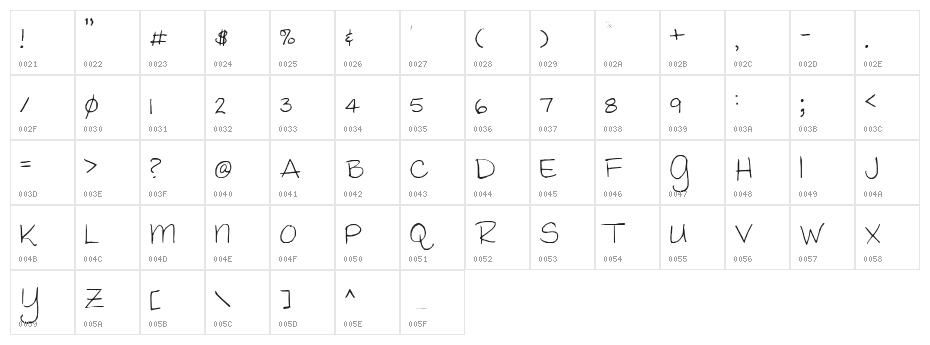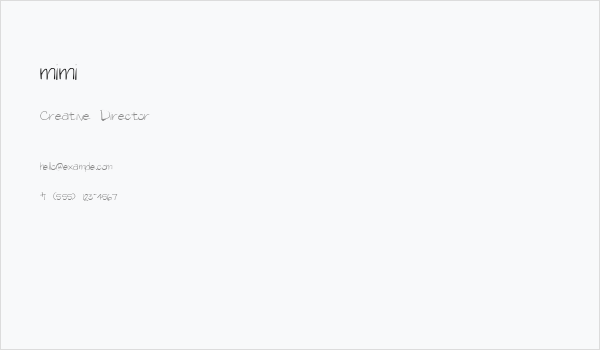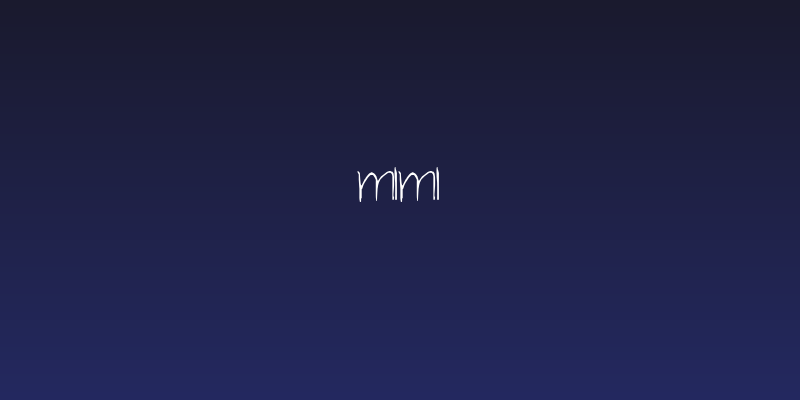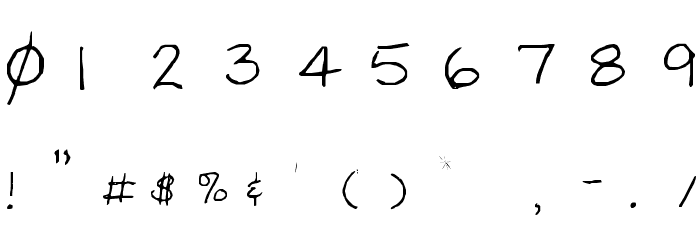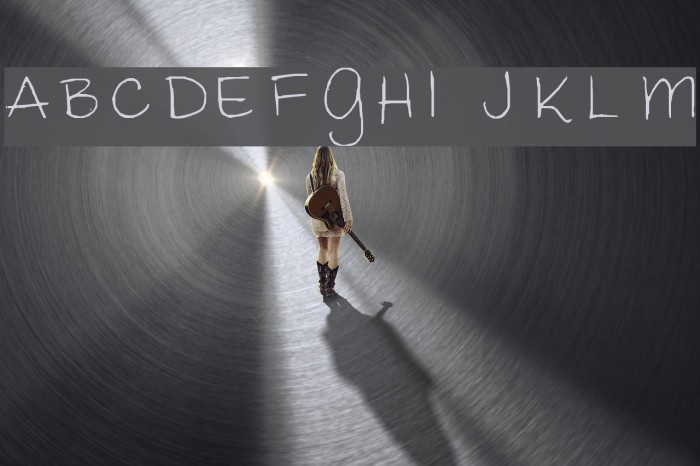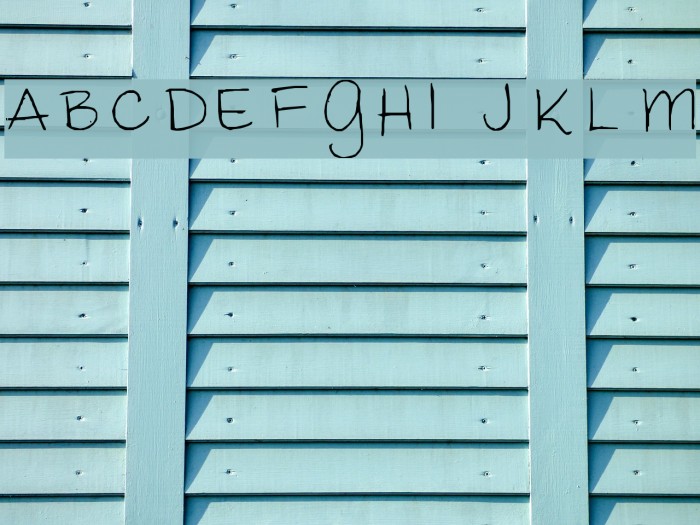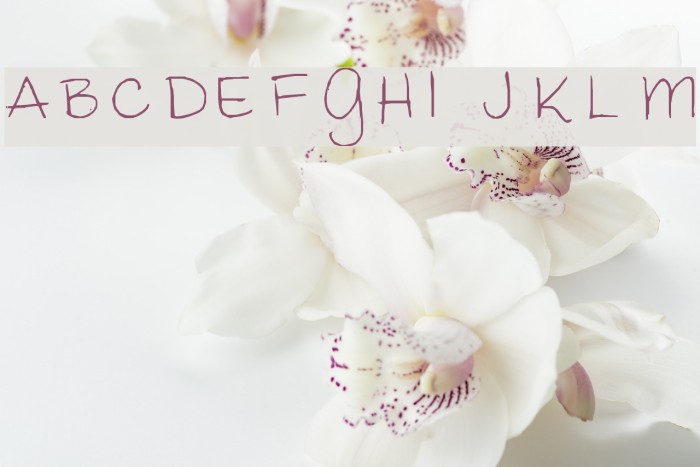
mimi Font
mimi Description
This font features a playful and informal handwritten style, characterized by its irregular strokes and whimsical curves. The uppercase letters are slightly larger and more pronounced, while the lowercase letters maintain a consistent flow, adding to the casual feel. The numbers and special characters follow the same playful aesthetic, making the font versatile for creative projects. The overall design is approachable and friendly, with a touch of spontaneity that can add personality to any text. The spacing between characters is relatively normal, allowing for easy readability while maintaining its unique style.